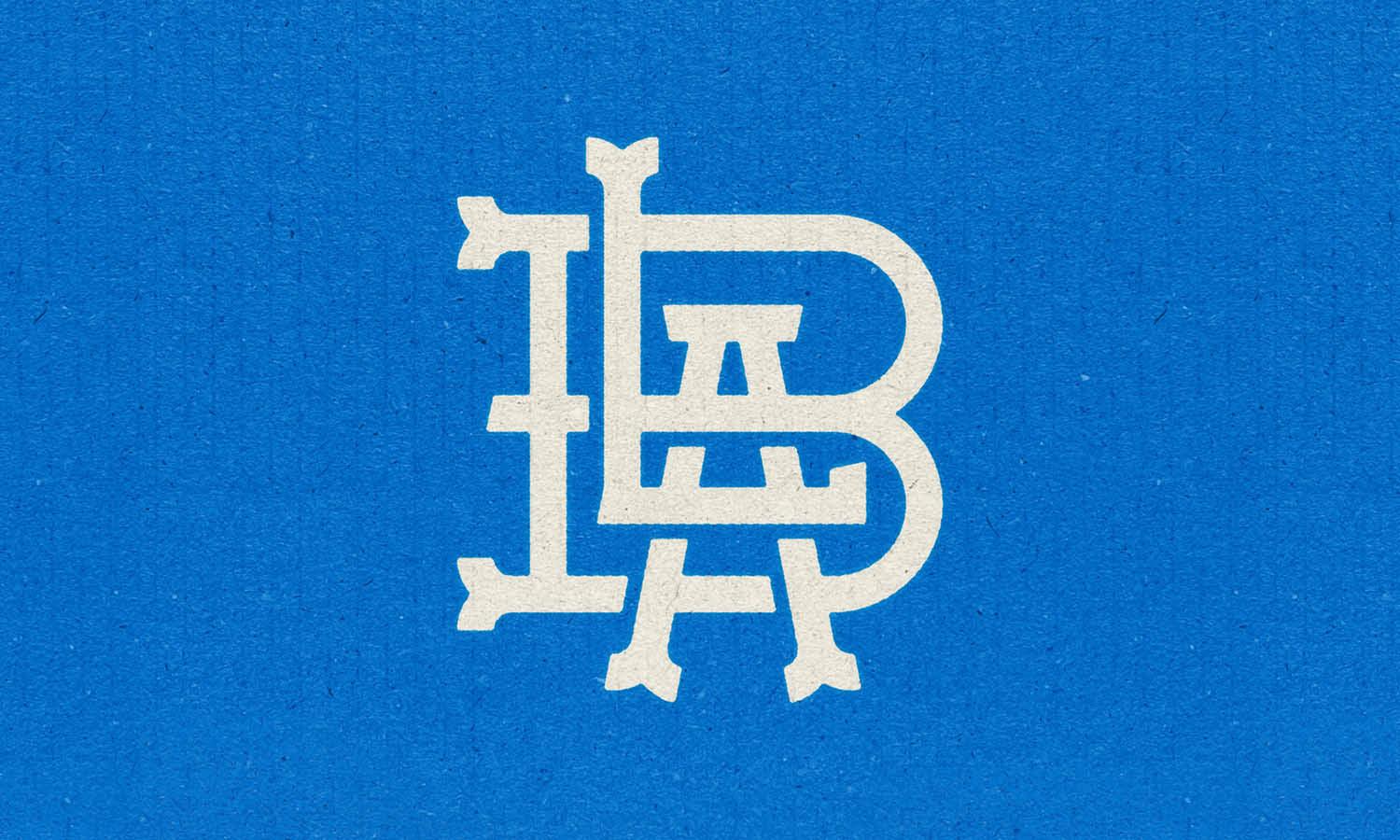
Discovering The Benefits of Serif Fonts For Logo Designs
Typography plays a powerful role in shaping how people perceive a brand, and the choice of font can greatly influence the overall impression of a logo. Among the many typeface styles available, the serif font remains one of the most respected and widely used options in logo designs. Known for its small decorative strokes at the ends of letters, a serif font brings a sense of tradition, elegance, and professionalism that many brands value.
Throughout history, many well-known companies and institutions have relied on serif fonts to build strong brand identities. These fonts naturally communicate reliability, authority, and sophistication, making them particularly effective for businesses that want to appear established and trustworthy. Because of their balanced structure and distinctive letterforms, serif fonts can also improve visual clarity and help a logo feel more refined.
In the world of logo designs, selecting the right typeface is not just about aesthetics but also about storytelling. A carefully chosen serif font can highlight a brand’s personality, reflect its heritage, and create a lasting visual impression. From luxury brands to publishing companies and law firms, serif typography continues to play an important role in branding.
In this article, we will explore the many benefits of using a serif font in logo designs and why this classic typography style remains a popular choice for designers and brands alike.
Timeless Elegance In Brand Identity
One of the most significant advantages of using a serif font in logo designs is the timeless elegance it brings to a brand’s identity. Serif fonts have been used for centuries in books, newspapers, and formal documents, which naturally gives them a sense of history and tradition. Because of this long-standing presence, many designers choose a serif font when they want a logo to appear classic, refined, and enduring.
In logo designs, visual style plays a major role in shaping how audiences perceive a brand. A serif font often communicates professionalism, stability, and maturity. This makes it especially suitable for industries such as publishing, finance, education, and luxury goods. Brands in these fields frequently rely on serif typography to convey authority and credibility.
Another reason serif fonts work well in logo designs is their balanced and structured appearance. The small strokes at the ends of letters add detail and personality, helping the logo feel more polished. These subtle features can make a brand mark appear thoughtful and carefully crafted rather than overly simple.
Designers also appreciate how a serif font can adapt to various branding styles. Whether used in a minimalist layout or a more decorative design, serif typefaces can maintain their sophisticated character. This flexibility allows brands to build logos that remain visually appealing for many years.
Ultimately, choosing a serif font for logo designs can help businesses create a timeless identity. Instead of following short-lived trends, serif typography supports a classic look that continues to feel relevant across generations.
Enhancing Readability In Professional Logo Designs
Readability is a critical factor in successful logo designs, and a serif font can play an important role in achieving clear and effective typography. The distinctive strokes found in serif letters guide the viewer’s eye along the shape of each character, making words easier to recognize. This feature can be particularly helpful when a logo includes the full brand name.
In many traditional print environments, serif fonts are widely known for their strong readability. This same advantage carries over to logo designs, where clarity is essential for brand recognition. When a logo appears on packaging, signage, or marketing materials, a well-chosen serif font can help ensure that the brand name remains legible and visually balanced.
Professional logo designs often require typography that feels both clear and sophisticated. Serif fonts naturally offer this combination. Their letterforms are carefully structured, providing enough detail to make each character distinct without becoming overly complex. As a result, brands can communicate their message in a way that feels polished and easy to read.
Another benefit is that serif fonts tend to perform well in larger display sizes. When used in logos, the subtle details in the lettering become part of the brand’s visual personality. These details can make the logo more memorable while still maintaining readability.
By using a serif font in logo designs, designers can achieve a balance between beauty and clarity. This makes serif typography a reliable choice for brands that want their logo to remain both attractive and easy to recognize across different platforms.